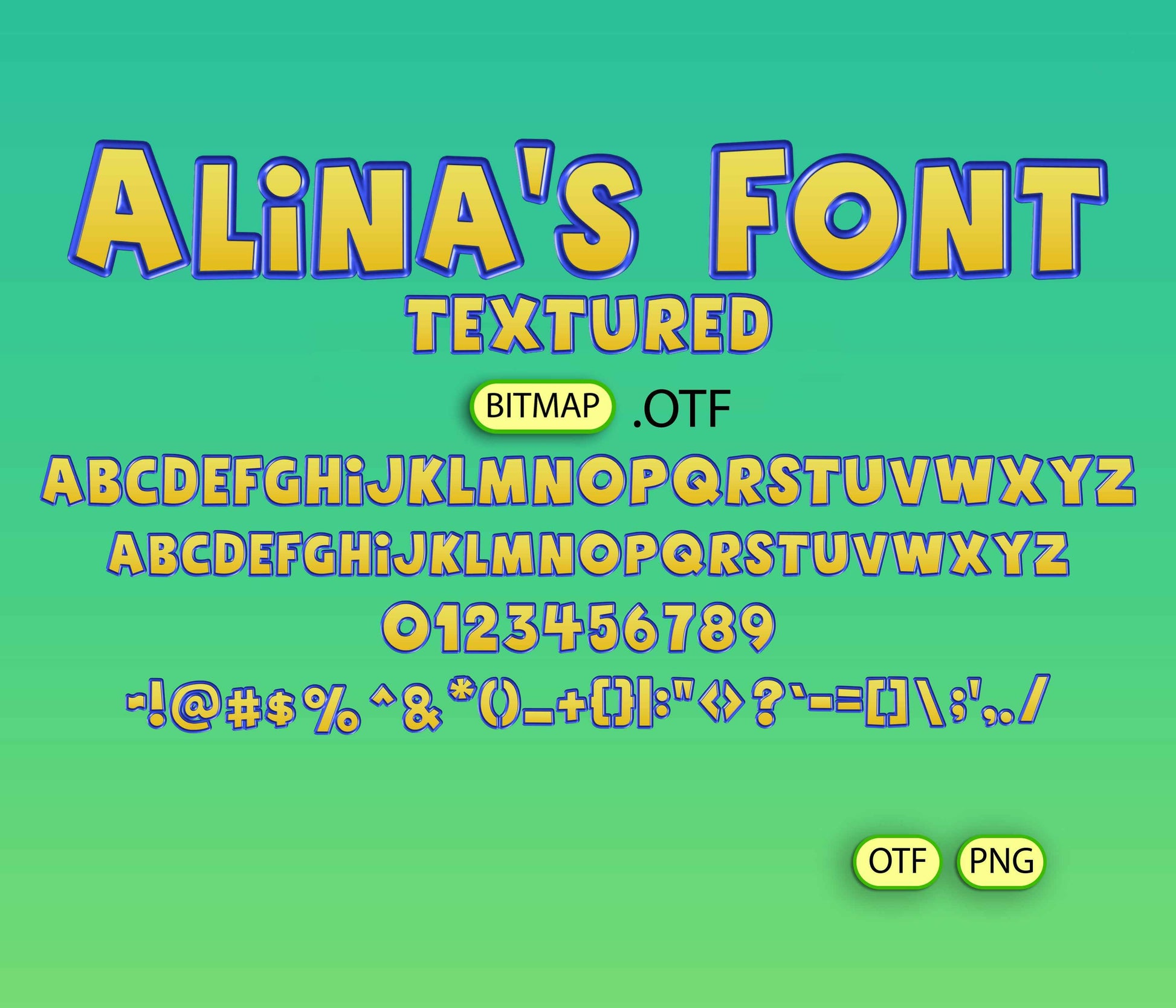
Playroom Pals Font Textured
Embark on a creative journey to infinity and beyond with our Playroom Pals Textured Font! This meticulously crafted design channels the heartwarming and adventurous spirit of a beloved animated toy series, making it an essential addition to any project that calls for a touch of whimsy and nostalgia.
What font is the Playroom Pals font?
It's not just a typeface; it's a gateway to the whimsical and vibrant world of a child's toy-filled room. Our Playroom Pals inspired font is meticulously crafted, mirroring the distinctive and playful lettering seen in popular animated movies. It boasts an extensive character set that includes not only the basic alphabets but also numbers and special characters, truly encapsulating an iconic original style.